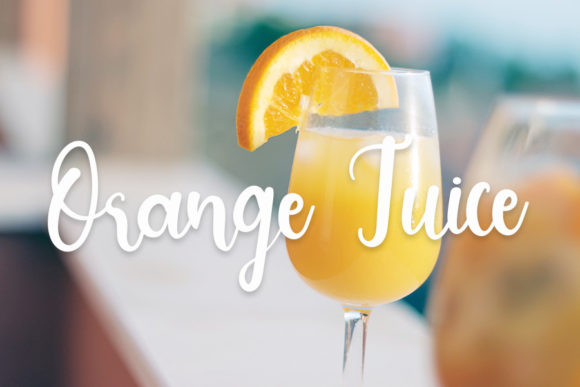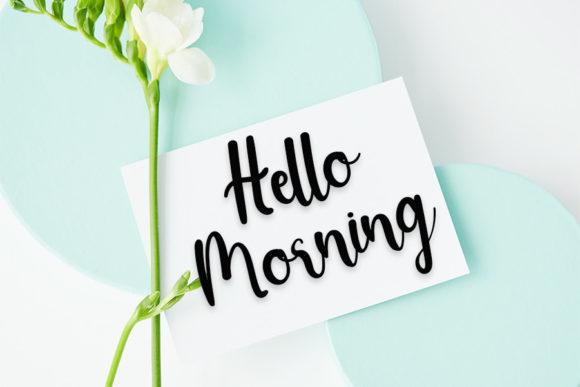
Mimosa Font
db-ku.com - Script & Handwritten -- Mimosa is a friendly handwritten font, carefully designed to become a true favorite. It maintains its classy calligraphic influences while feeling contemporary and fresh.